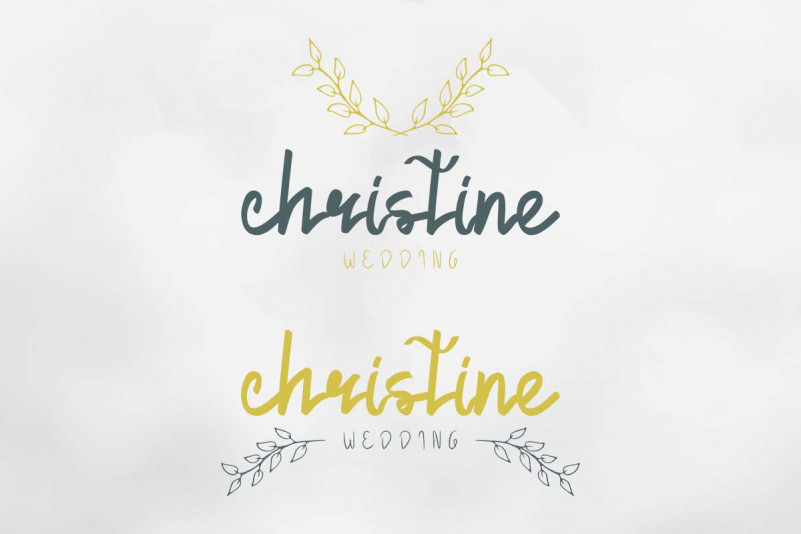
Gonlotus Fangwell Font Duo
Presenting to you : Gonlotus Fangwell Font Duo This is a font duo with two styles : Handwriting signature and Display Grunge. This typeface was handcrafted by three typeface artists : Ali, Naufal and Suci. Made in Bandung and Garut – West Java, Indonesia.